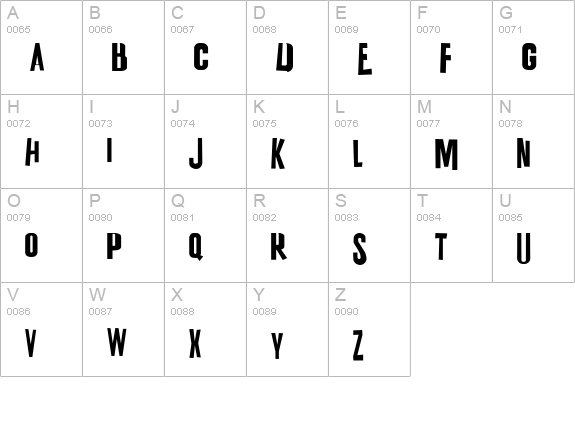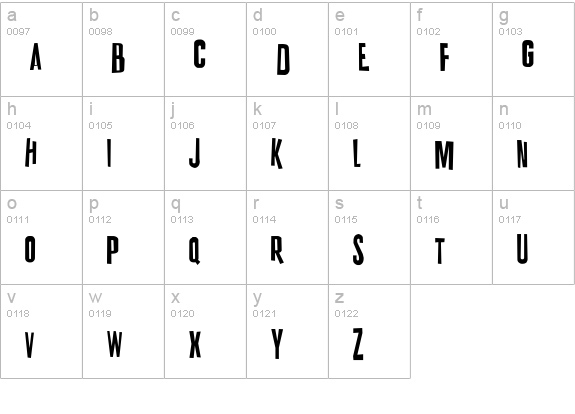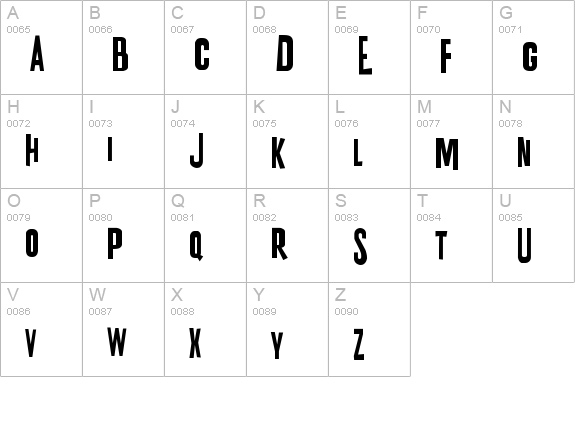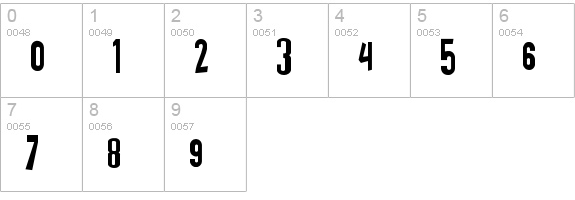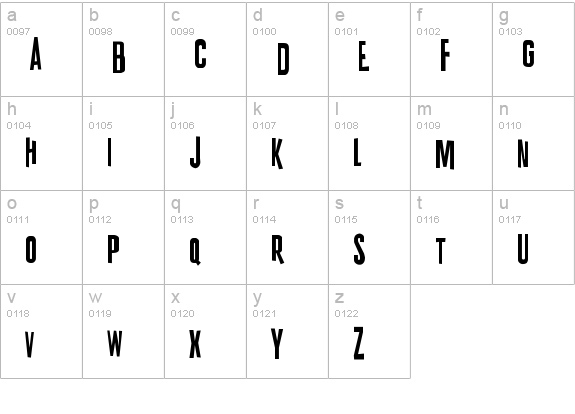
K.P. Duty JL Font Details
K.P. Duty JL is a captivating and versatile font that exudes a sense of modernity and sophistication. With its clean lines and bold strokes, this font is sure to make a lasting impression on any design project. Whether you're creating eye-catching headlines or sleek branding materials, K.P. Duty JL will effortlessly elevate your work to new heights. This font boasts a unique blend of elegance and playfulness, making it perfect for a wide range of applications. It is well-suited for professional designs, such as logos, business cards, and corporate presentations, as well as creative projects like invitations, posters, and social media graphics. One of the most appealing aspects of K.P. Duty JL is that it is free to download. Yes, you read that right - this stunning font can be yours without spending a penny. Simply head over to FontsMarket.com and easily access this font to enhance your design arsenal. With K.P. Duty JL, you'll have countless opportunities to showcase your creativity and leave a lasting impression on your audience. Its versatility and striking aesthetic will undoubtedly make it a go-to choice for designers and enthusiasts alike. Download K.P. Duty JL today and unlock a world of design possibilities, all for free.